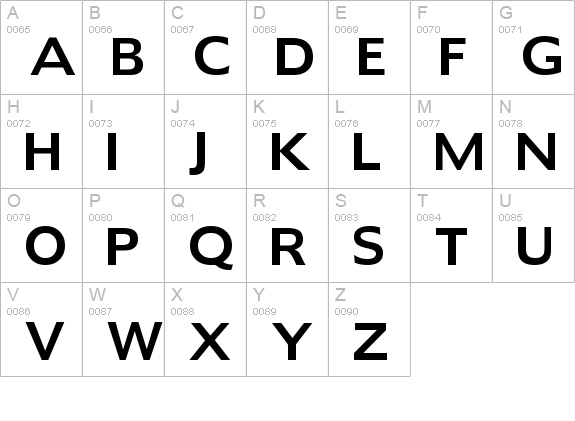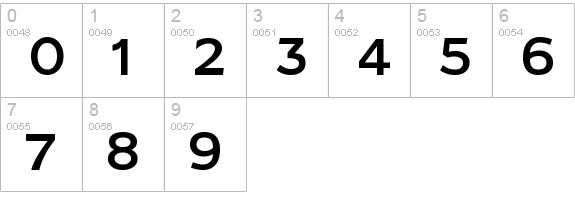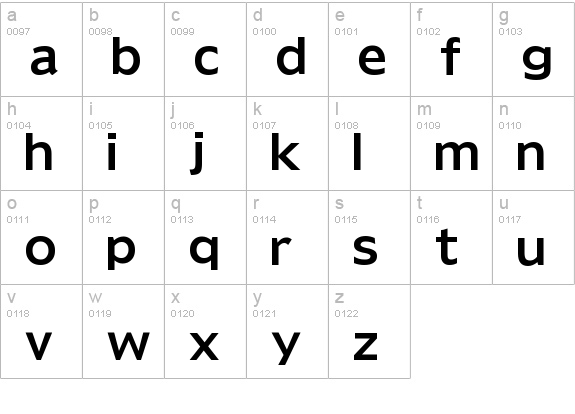
Reforma Font Details
Reforma font is a modern and elegant typeface that exudes sophistication and style. With its clean lines and timeless appeal, Reforma is perfect for a wide range of design projects, from branding to editorial design. This versatile font features a sleek and contemporary look that will add a touch of sophistication to any project. The best part? Reforma font is completely free to download at FontsMarket.com, making it accessible to designers of all levels. Whether you're working on a professional project or simply looking to add a touch of elegance to your personal designs, Reforma font is the perfect choice. Download it today and elevate your design projects with this stunning typeface.